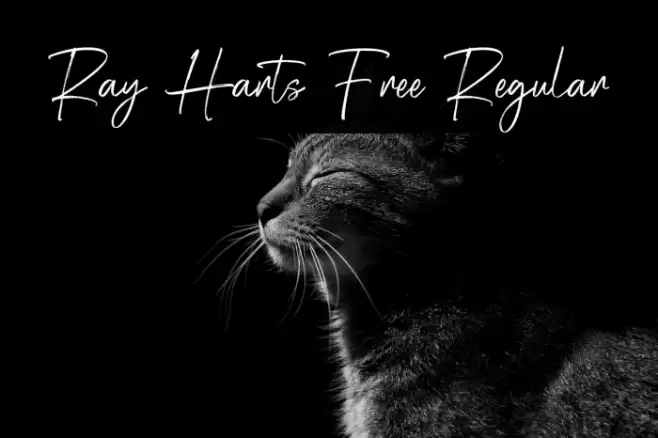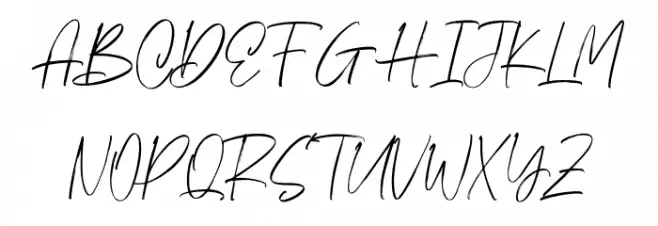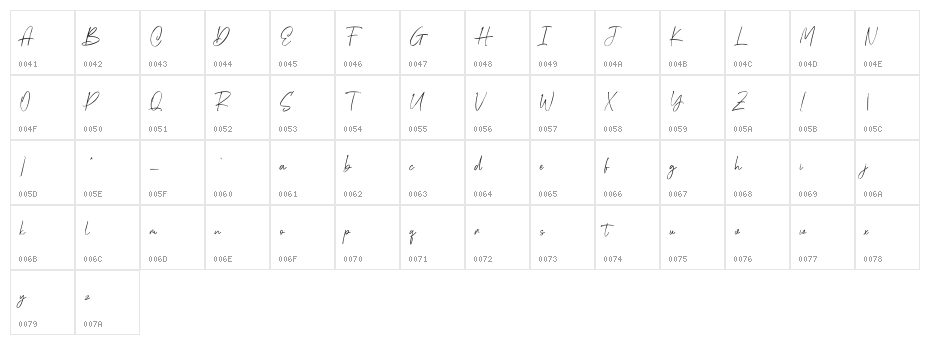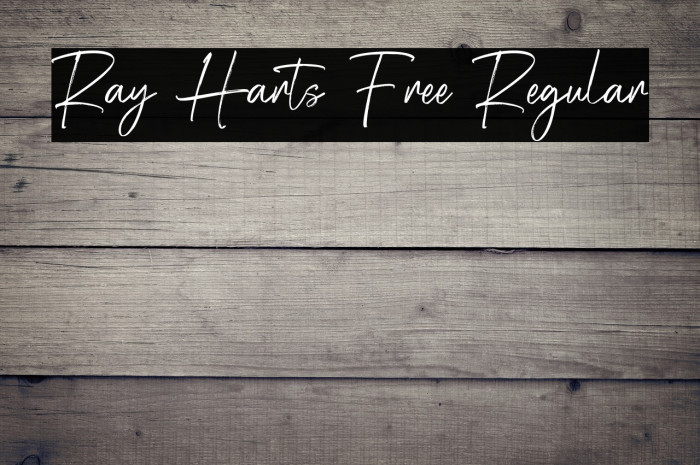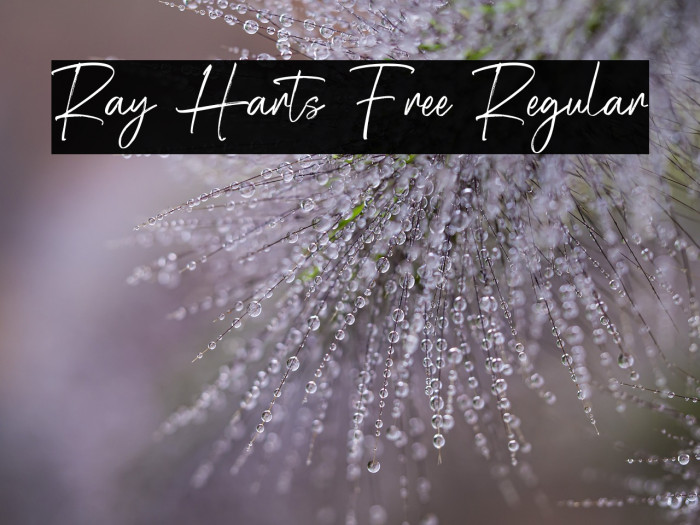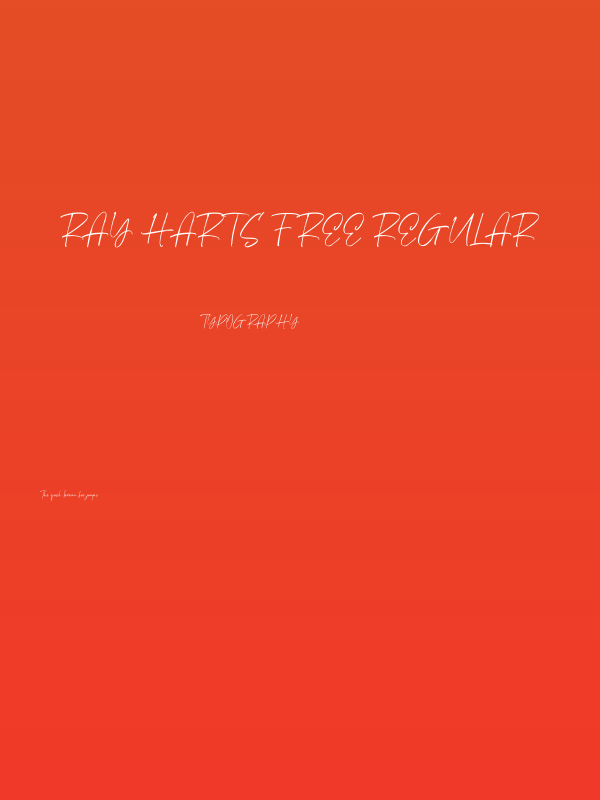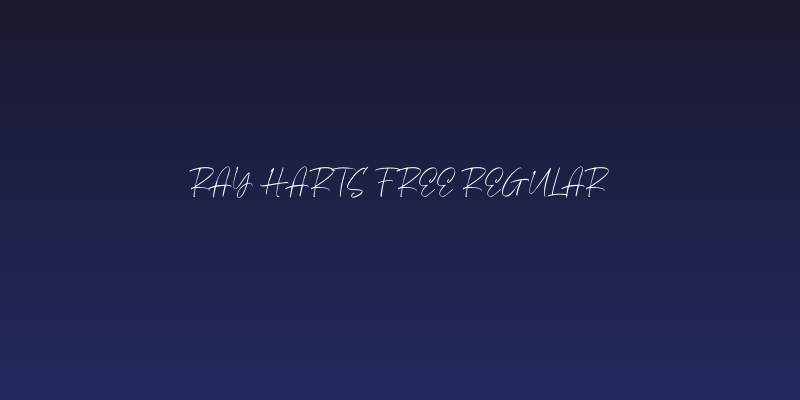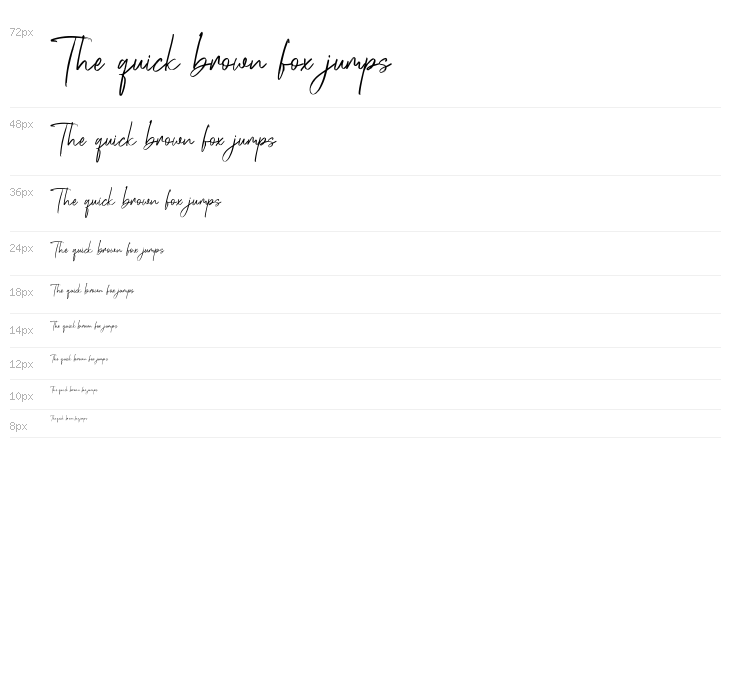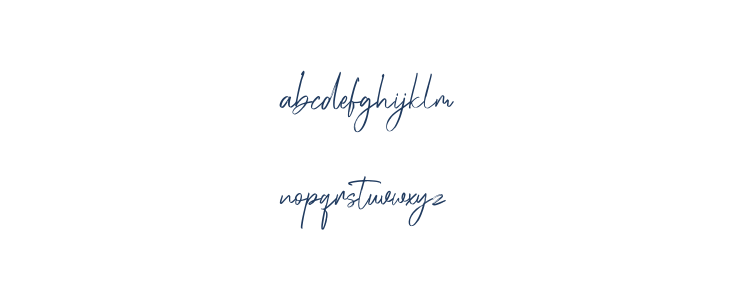
Ray Harts Free Regular Font
Ray Harts Free Regular Description
This font features a handwritten style with a casual and flowing appearance. The uppercase letters are tall and slightly narrow, with a playful and dynamic feel. The lowercase letters maintain a consistent style, with smooth curves and a natural, organic look. The strokes are thin, giving the font a light and airy quality. The overall design is elegant yet informal, making it suitable for a variety of creative projects. The special characters blend seamlessly with the alphabet, maintaining the font's cohesive style.
A casual, handwritten font with a flowing and elegant style from Regular fonts.
- Proposed Projects: Ideal for wedding invitations, greeting cards, personal branding, and social media graphics.
- Use Case: Logos, Headlines, Invitations